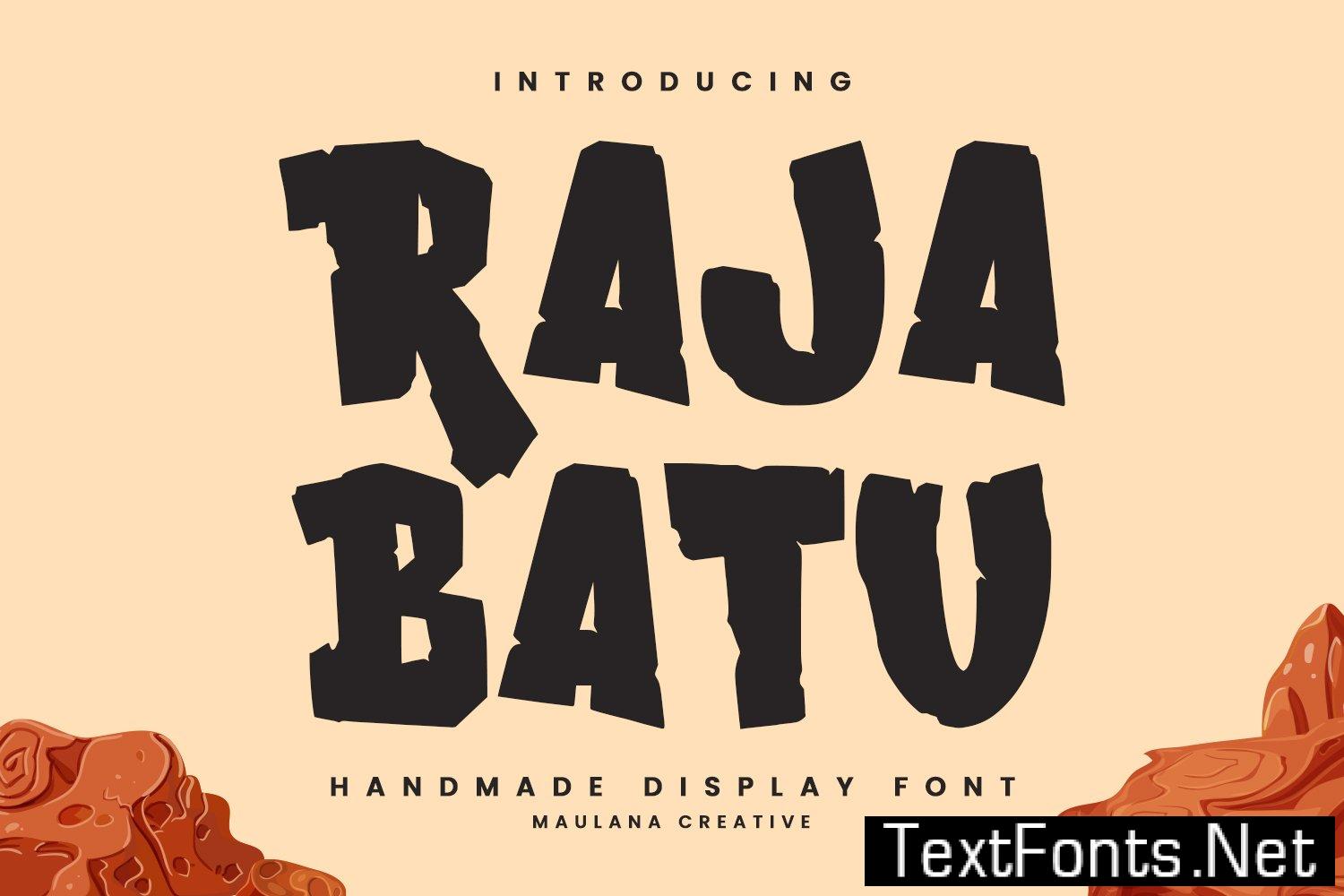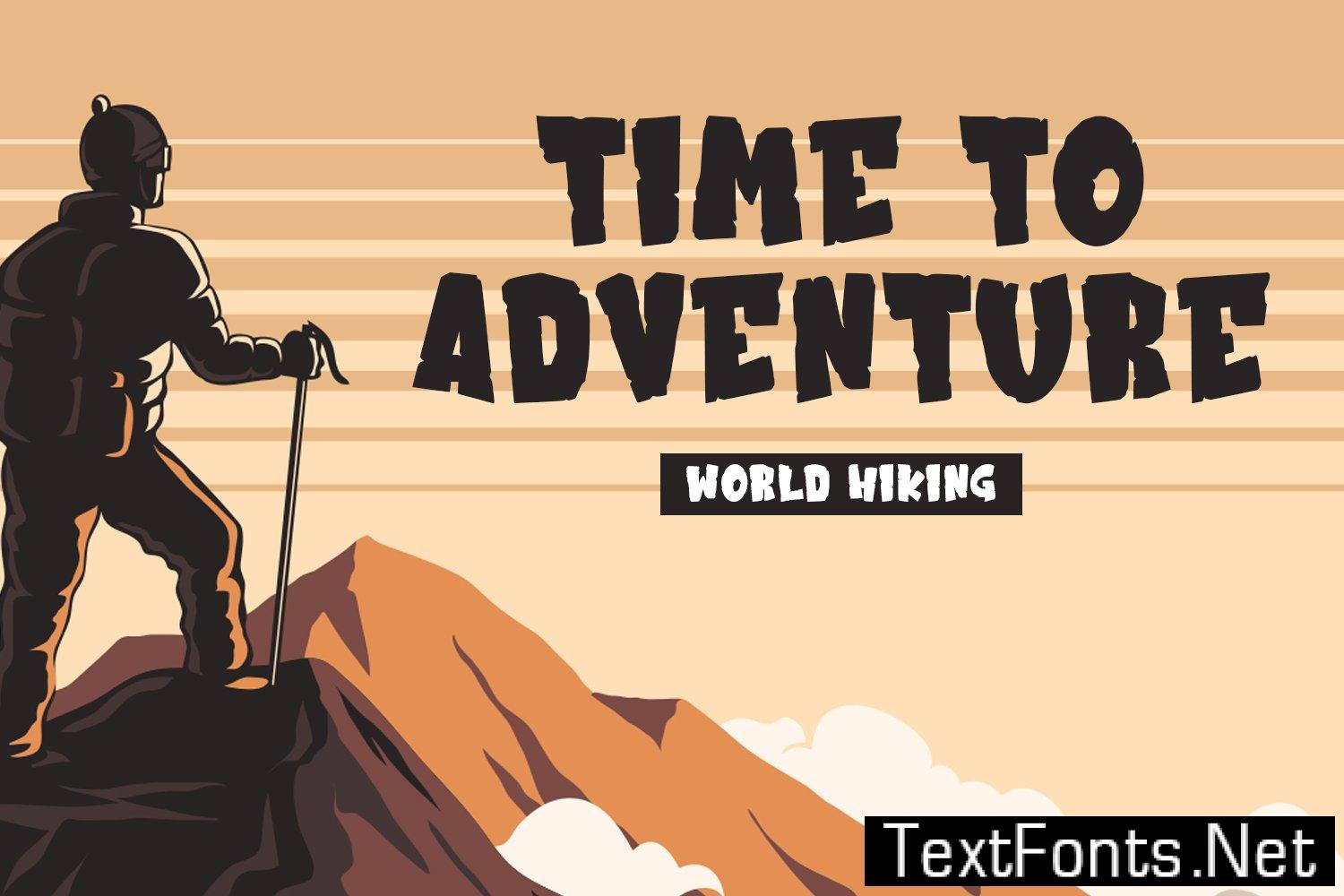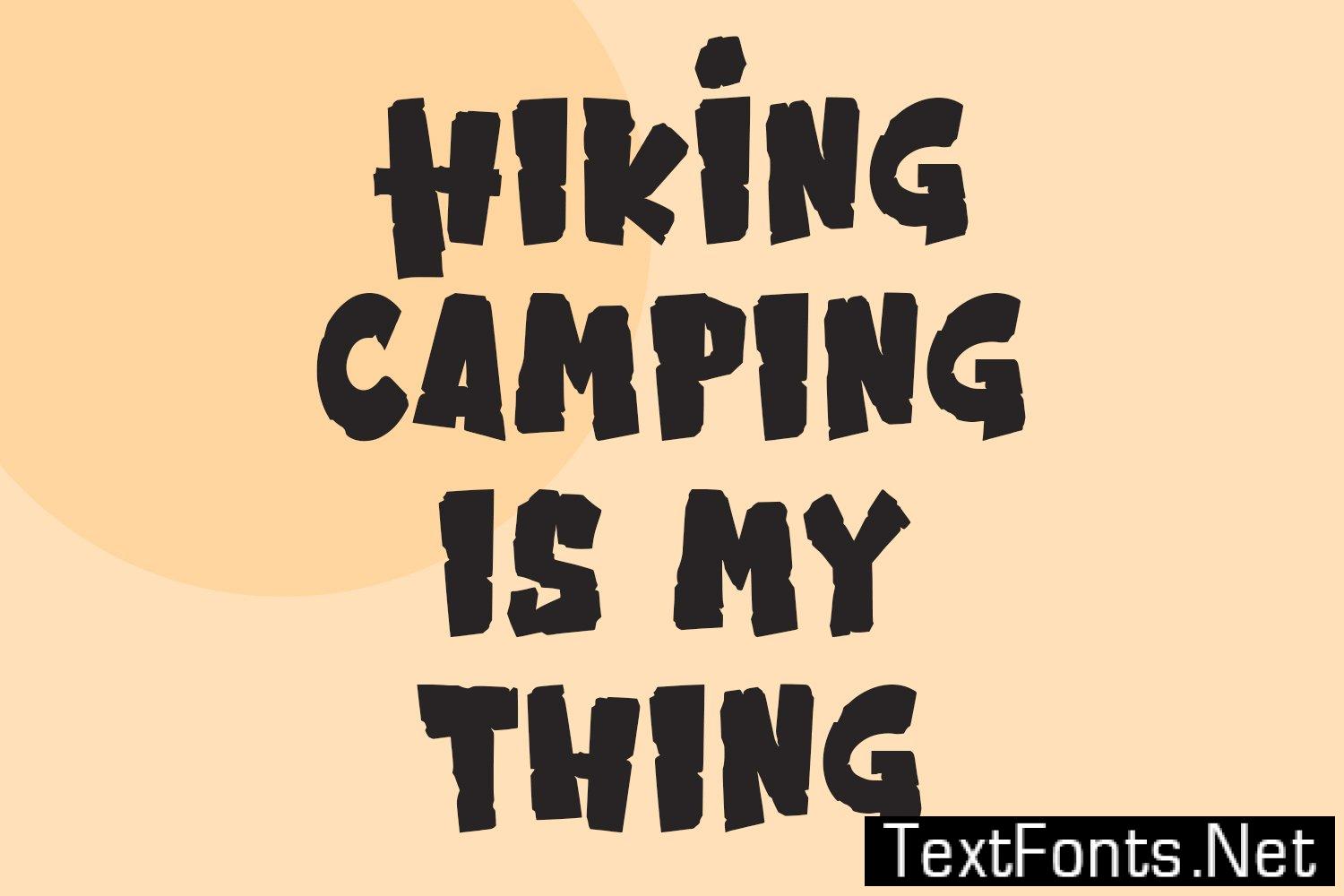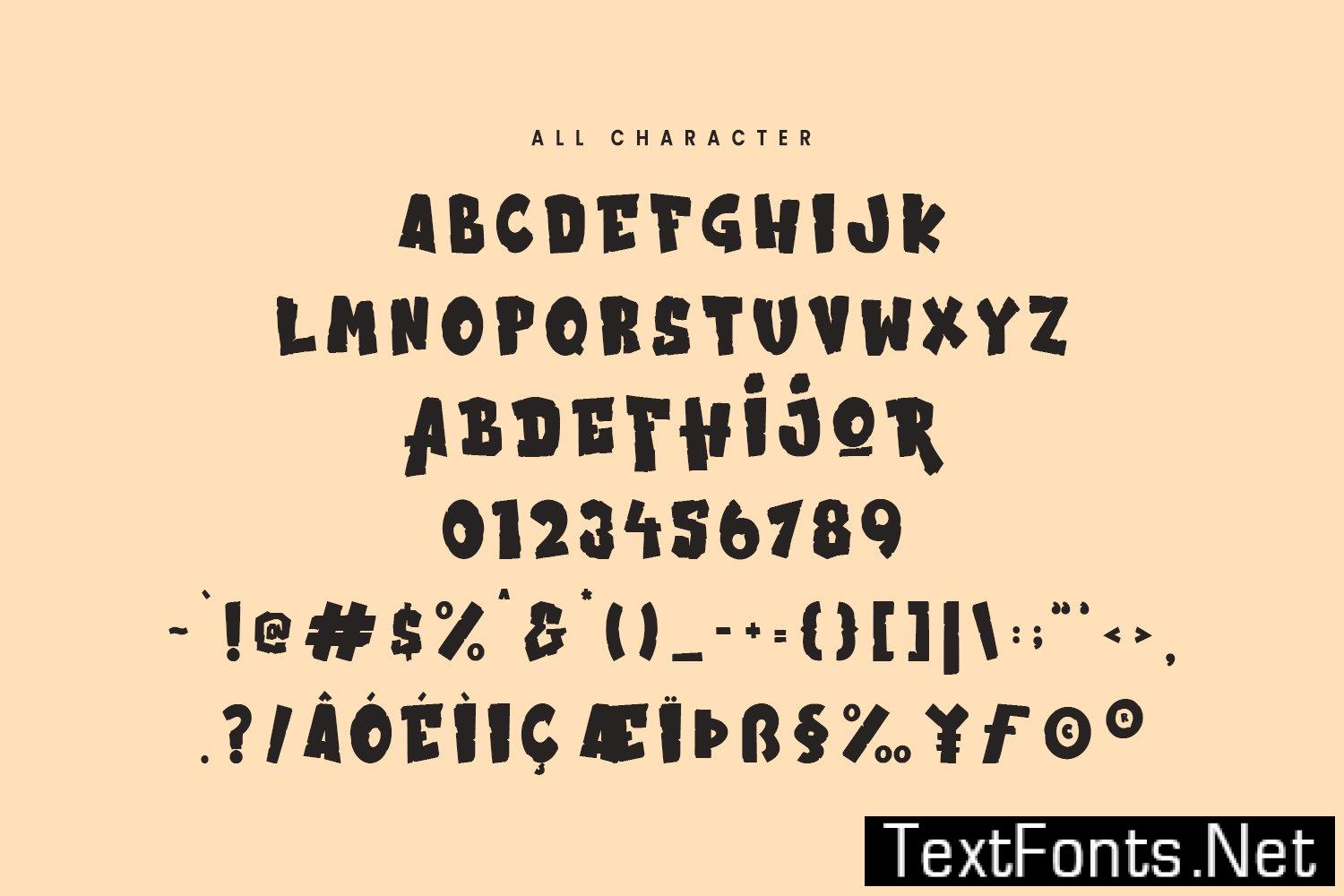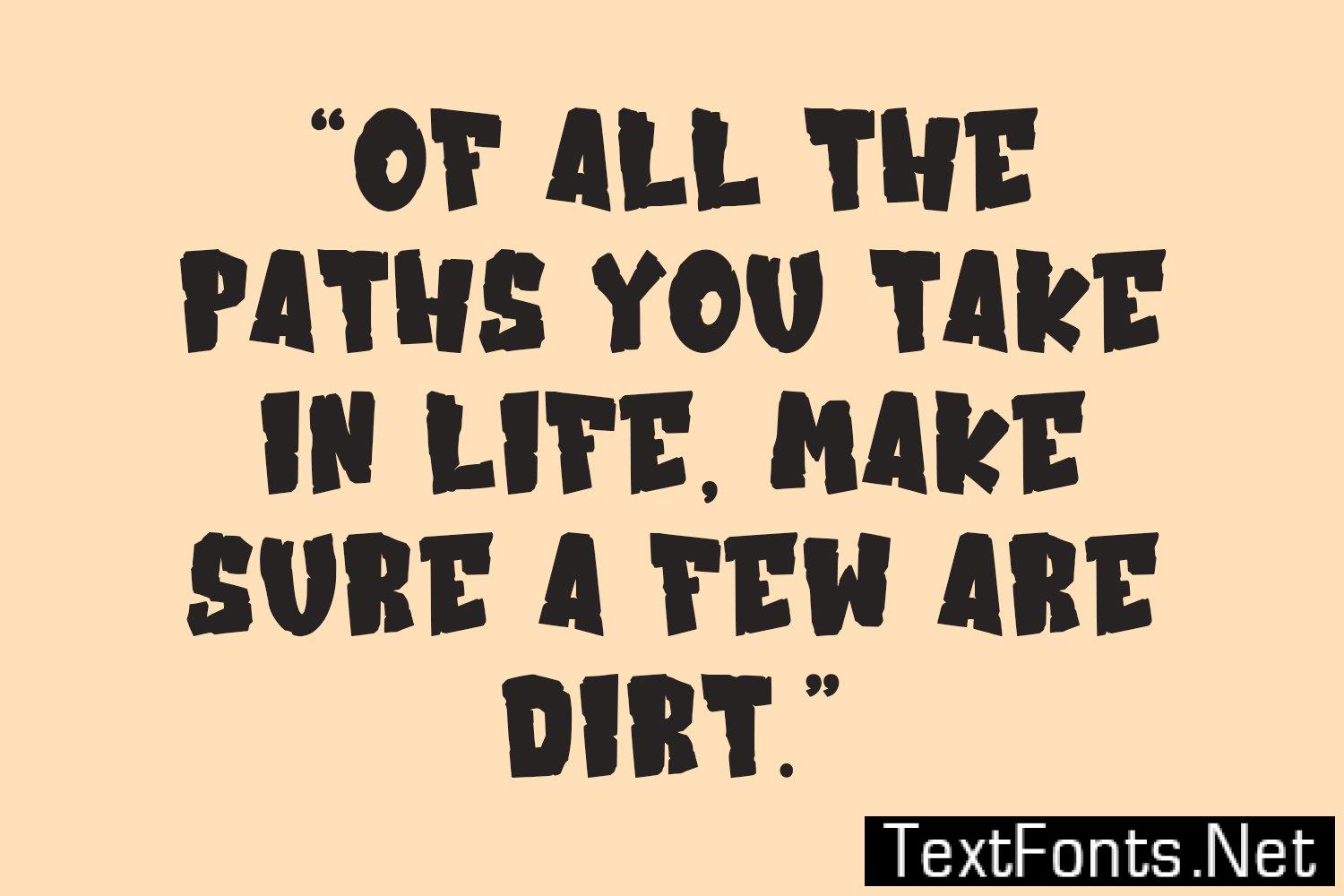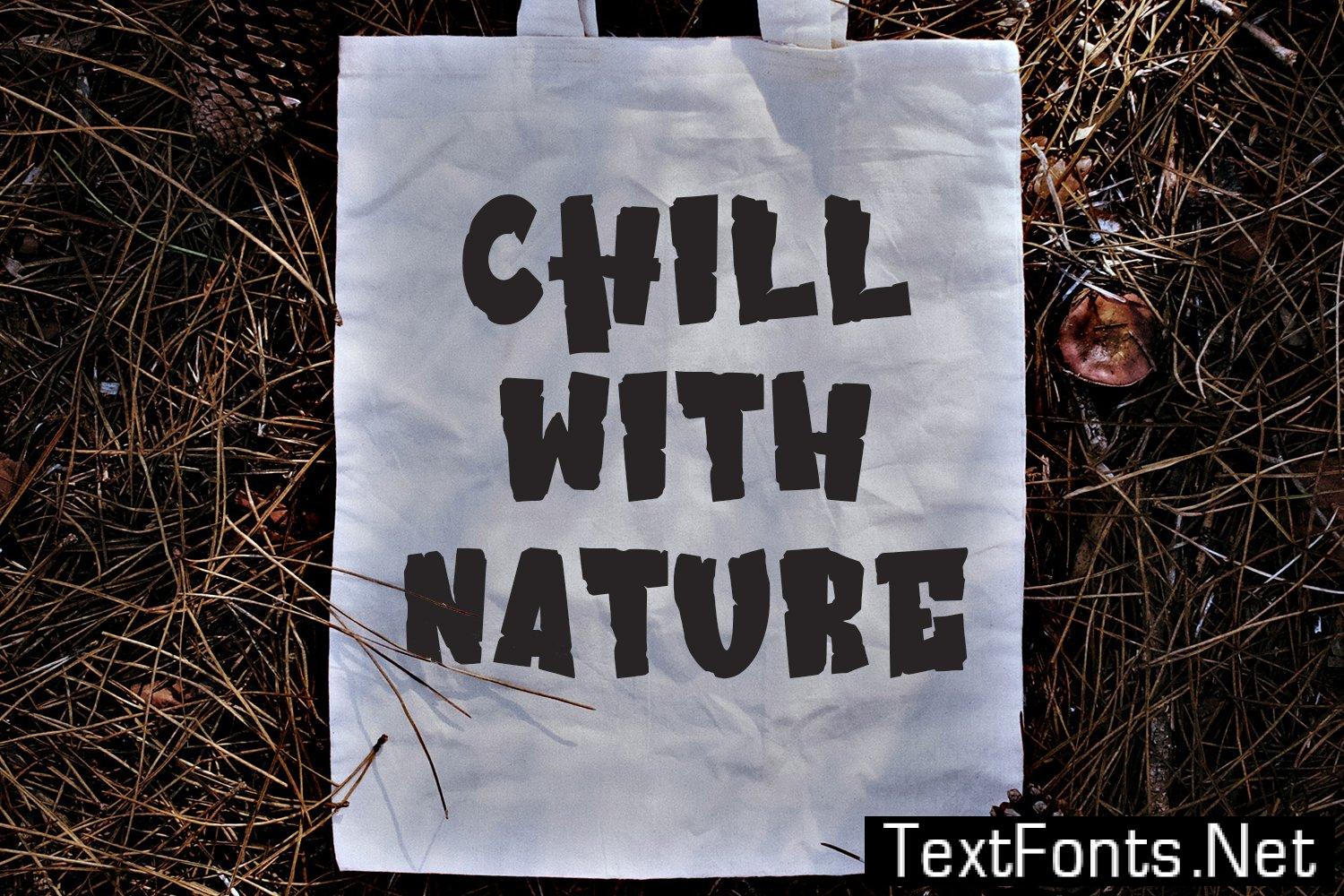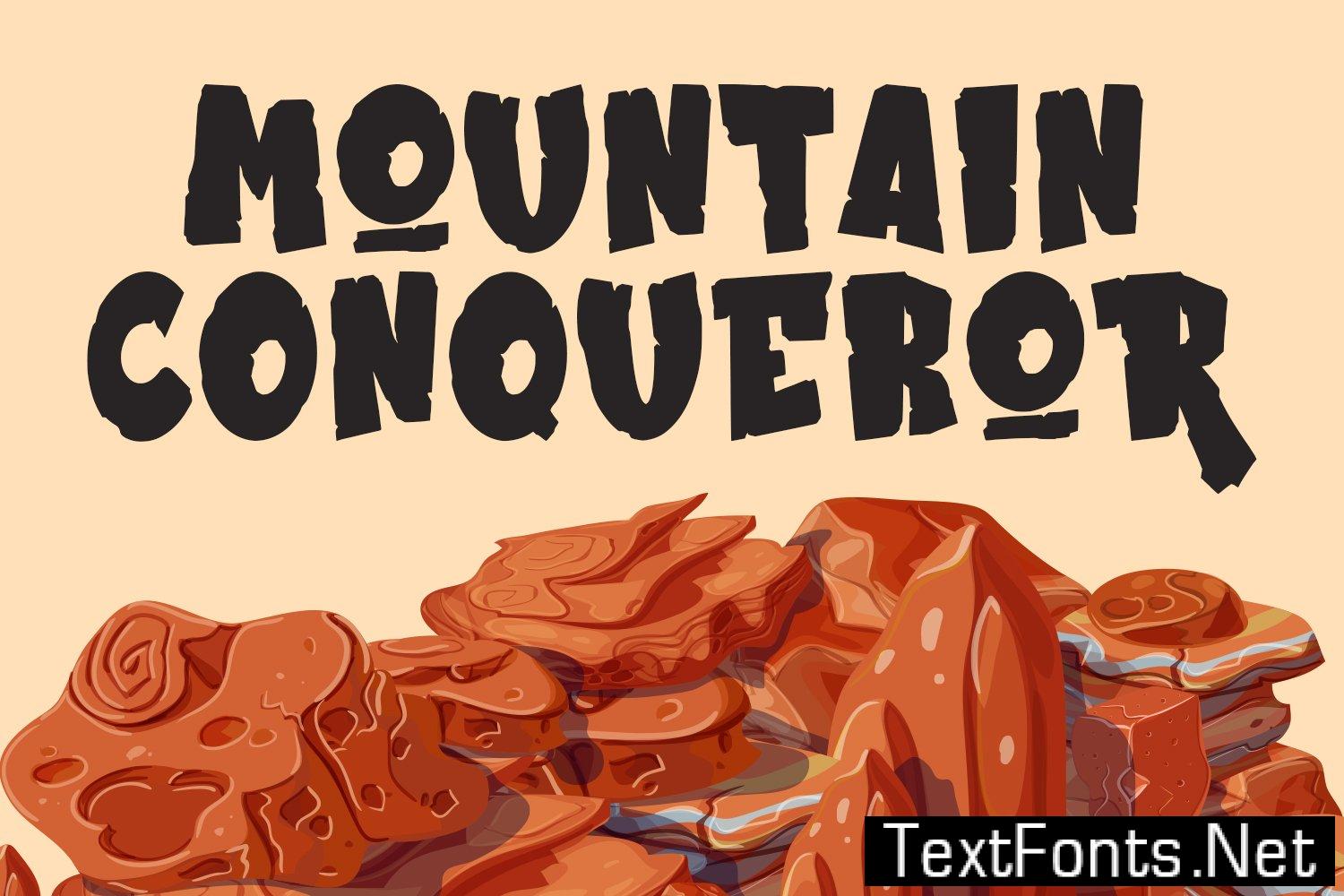
Raja Batu display font. With bold stroke, fun character with alternates. To give you an extra creative work. Raja Batu display font support multilingual language. This font is good for logo design, Social media, Movie Titles, Books Titles, a short text even a long text letter and good for your secondary text font with sans or serif. Make a stunning work with Raja Batu display font.
Maulana Creative